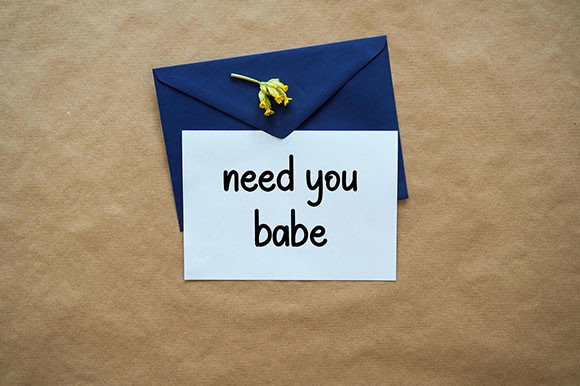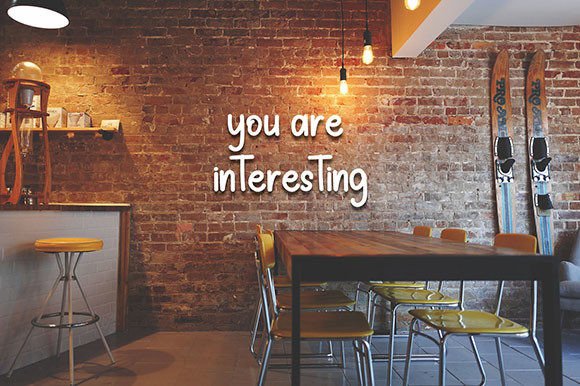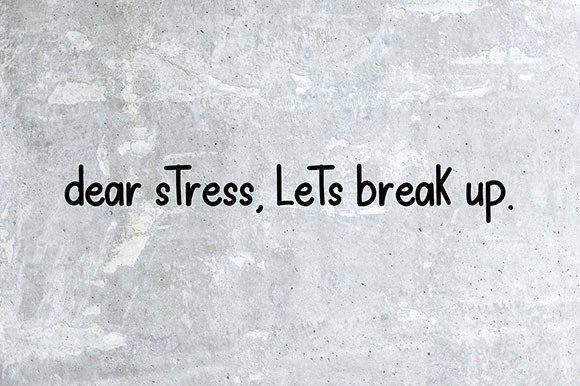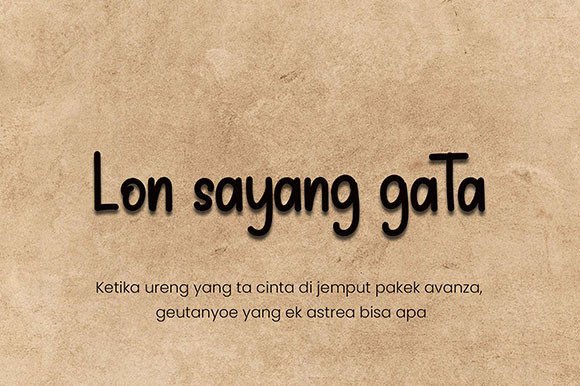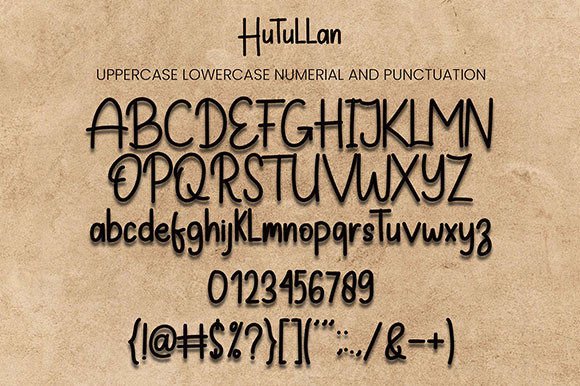
Introduction to Hutullan Font
As a designer, there’s nothing quite like the thrill of finding the perfect font to bring a creative project to life. It’s that moment when all the pieces fall into place, and your design begins to take shape. For many of us, this moment often comes when we stumble upon a unique and charming font that adds that extra special touch to our work.
One such font that has been making waves in the design community is the Hutullan Font. This simple yet adorable handwritten font is a game-changer for designers looking to add a personal touch to their work. With its high-quality design and transparent background, the Hutullan Font is the perfect addition to any creative project, whether it’s a logo, blog header, or poster.
Key Features of Hutullan Font
- High-quality, professional design suitable for various creative projects, including graphic design, digital art, and publishing.
- Transparent background option allows for seamless integration into various design elements, such as logos, icons, and graphics.
- Designed with a unique aesthetic, Hutullan Font features a distinctive style that sets it apart from other sans-serif fonts.
- High-resolution design (up to 1024 x 1024 pixels) ensures crisp and clear typography, even at large font sizes.
- Perfect for designers working on projects that require a modern, clean, and sophisticated look, making it an excellent addition to any design resource.
Honest Review: Hutullan Font
I recently stumbled upon the Hutullan Font, and I’m excited to share my thoughts with you. As a designer, I’m always on the lookout for high-quality design resources to elevate my creative projects.
What works well for me about the Hutullan Font is its versatility. The font is available for free download, and it comes in a variety of styles, making it perfect for a range of design projects. The font’s transparent background is also a huge plus, allowing me to easily layer it over other design elements.
- ✨ High-quality design: The Hutullan Font is well-crafted and looks great on-screen.
- ✨ Versatile: The font comes in multiple styles, making it perfect for a range of design projects.
One limitation I’ve noticed is that the font may not be suitable for all design projects. The Hutullan Font is a bit on the ornate side, which can make it difficult to read at smaller font sizes. Additionally, the font’s style may not be to everyone’s taste.
Overall, I’m impressed with the Hutullan Font. While it may have some limitations, its high-quality design and versatility make it a great addition to any designer’s toolkit. If you’re looking for a unique and stylish font for your next creative project, the Hutullan Font is definitely worth checking out.
Hutullan Font
The Hutullan Font is a high-quality design resource perfect for any creative project. It’s available for free download and can be used in a variety of applications.
The Hutullan Font is perfect for use in a variety of creative projects, including: